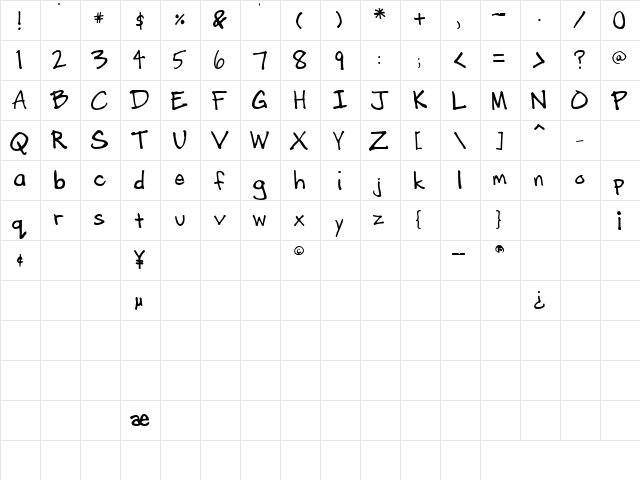
Dummyboy Regular Font Preview
Dummyboy Regular
Design Context for Dummyboy Typeface
Dummyboy is a composed and adaptable typeface that performs quietly and consistently across a wide range of design contexts.